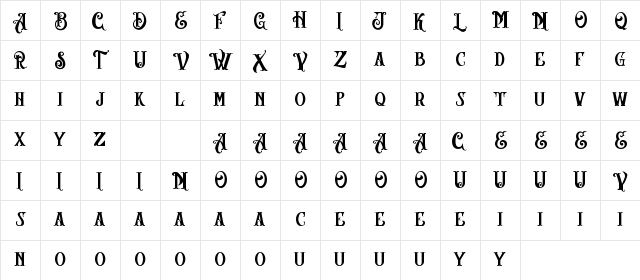
AngeL Bilsh - Demo Regular
Design Context for AngeL Bilsh - Demo Typeface
AngeL Bilsh - Demo is a composed and adaptable typeface that performs quietly and consistently across a wide range of design contexts.
Pro Tip: Pair AngeL Bilsh - Demo with a font of contrasting weight or personality to build a more expressive typographic hierarchy.